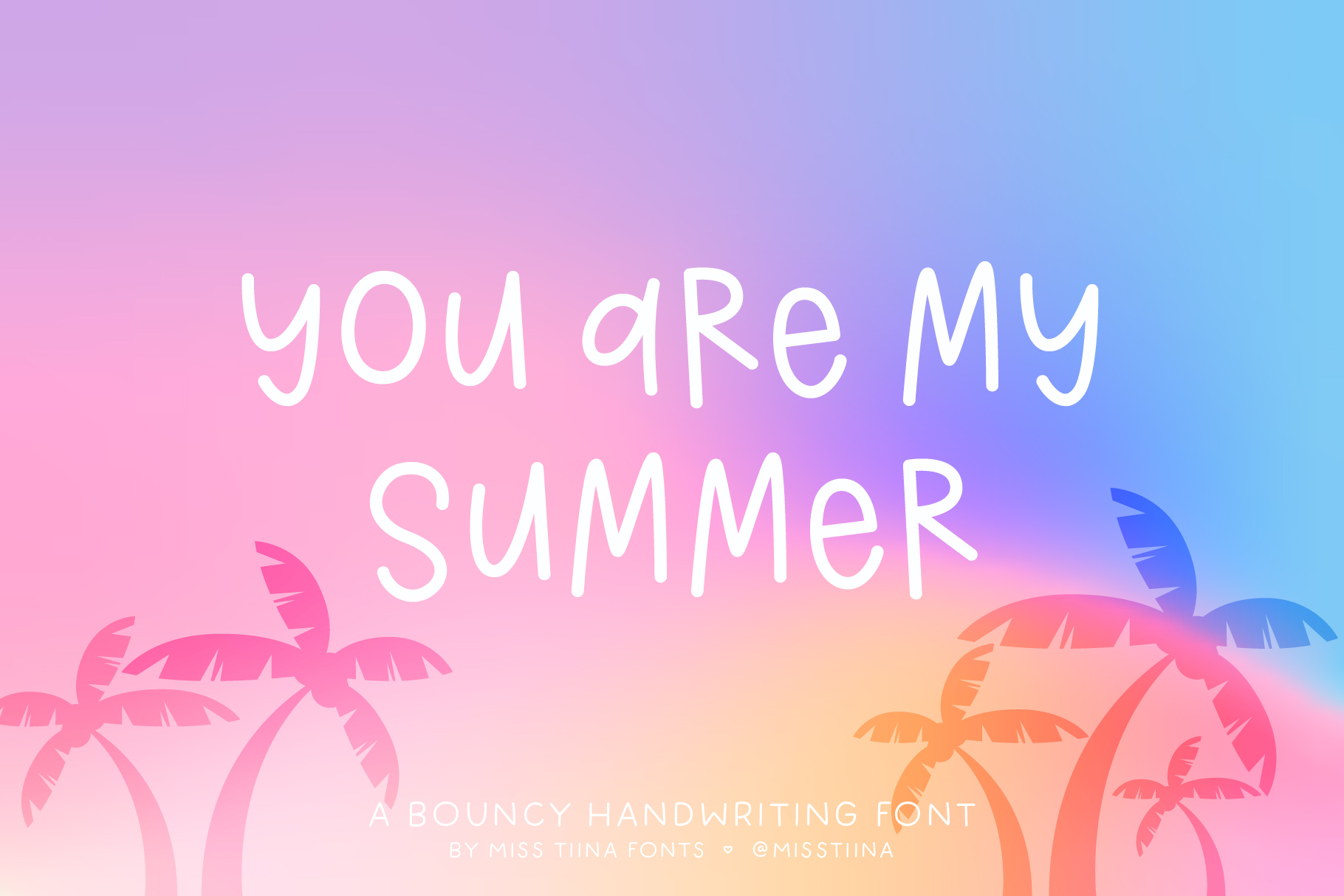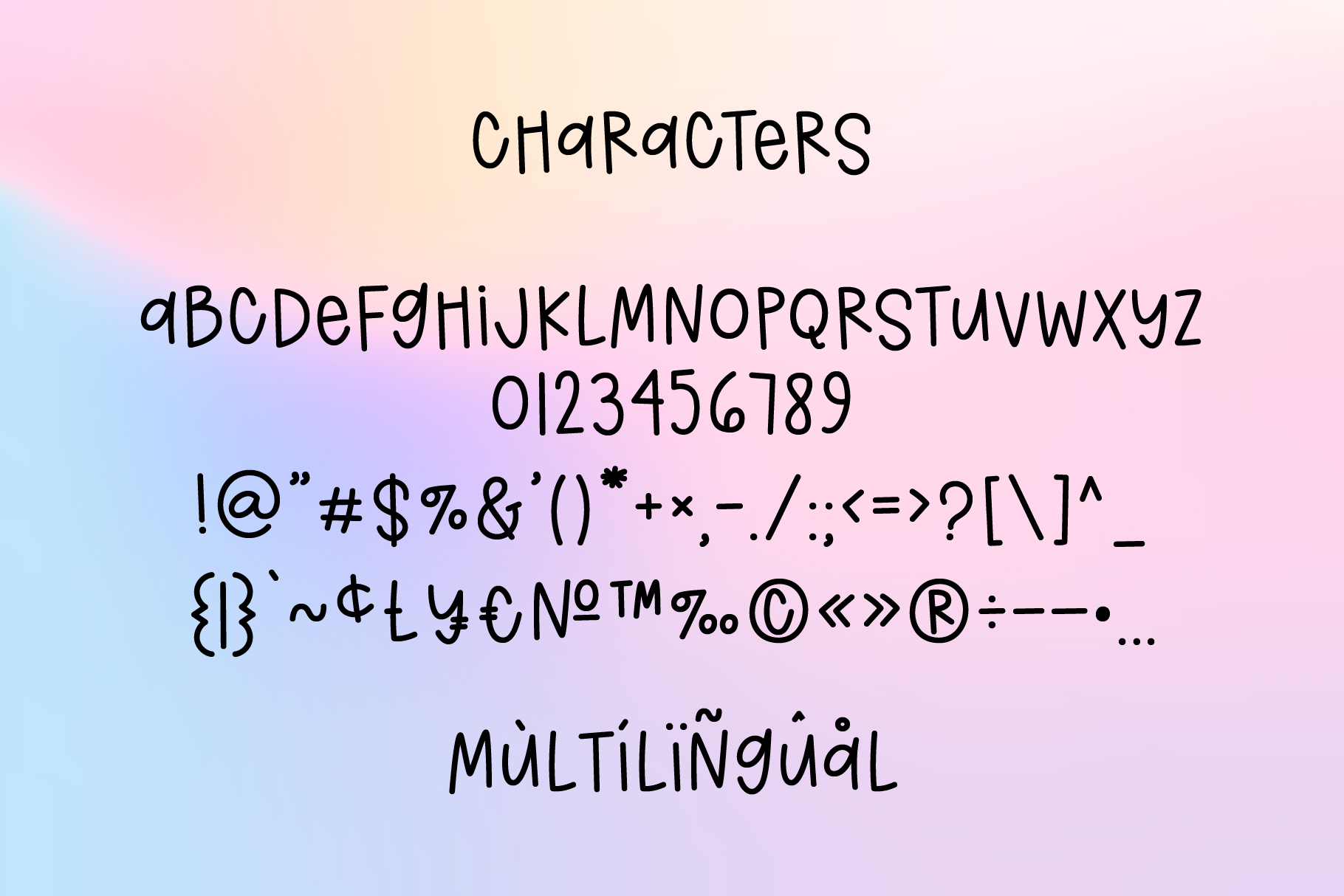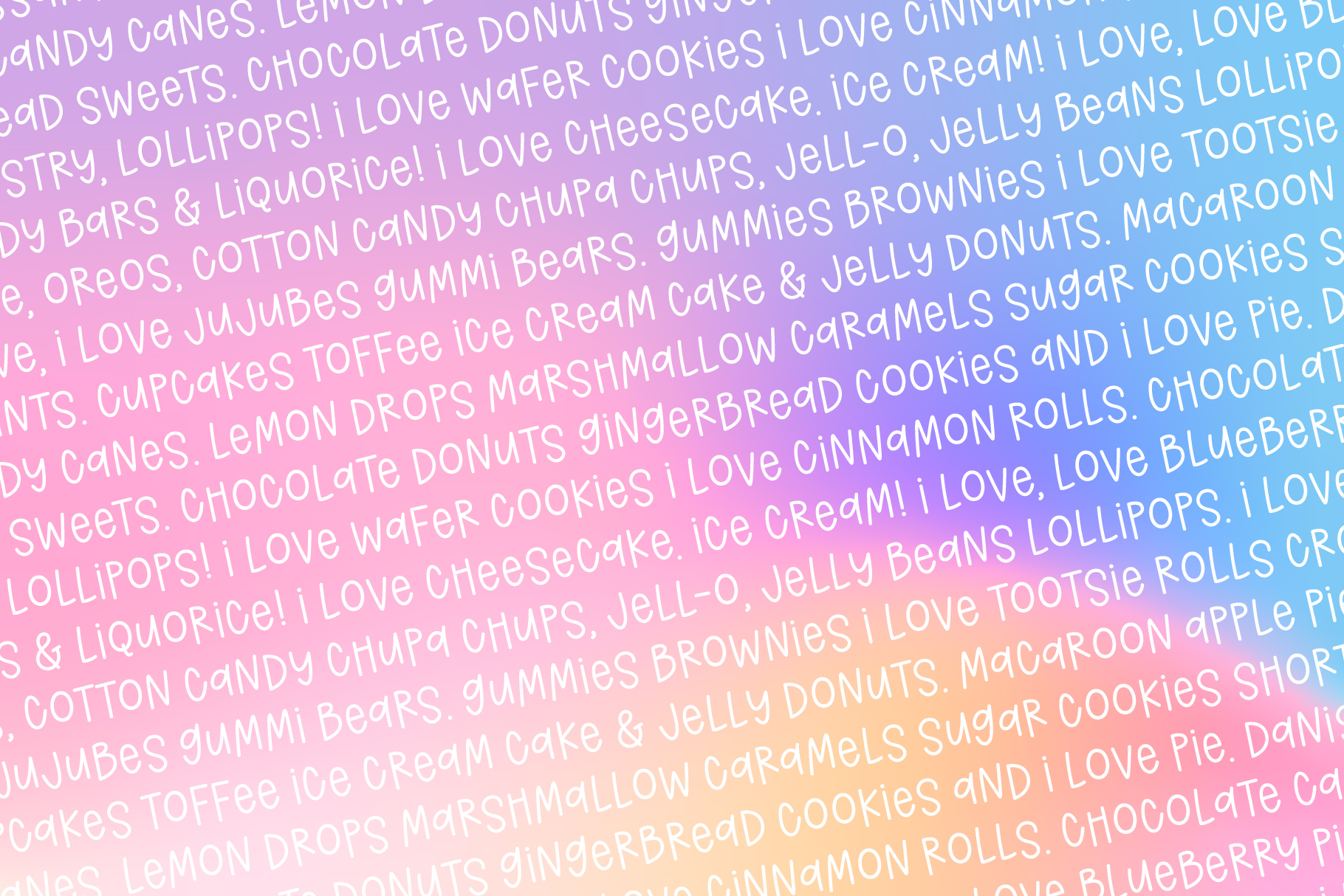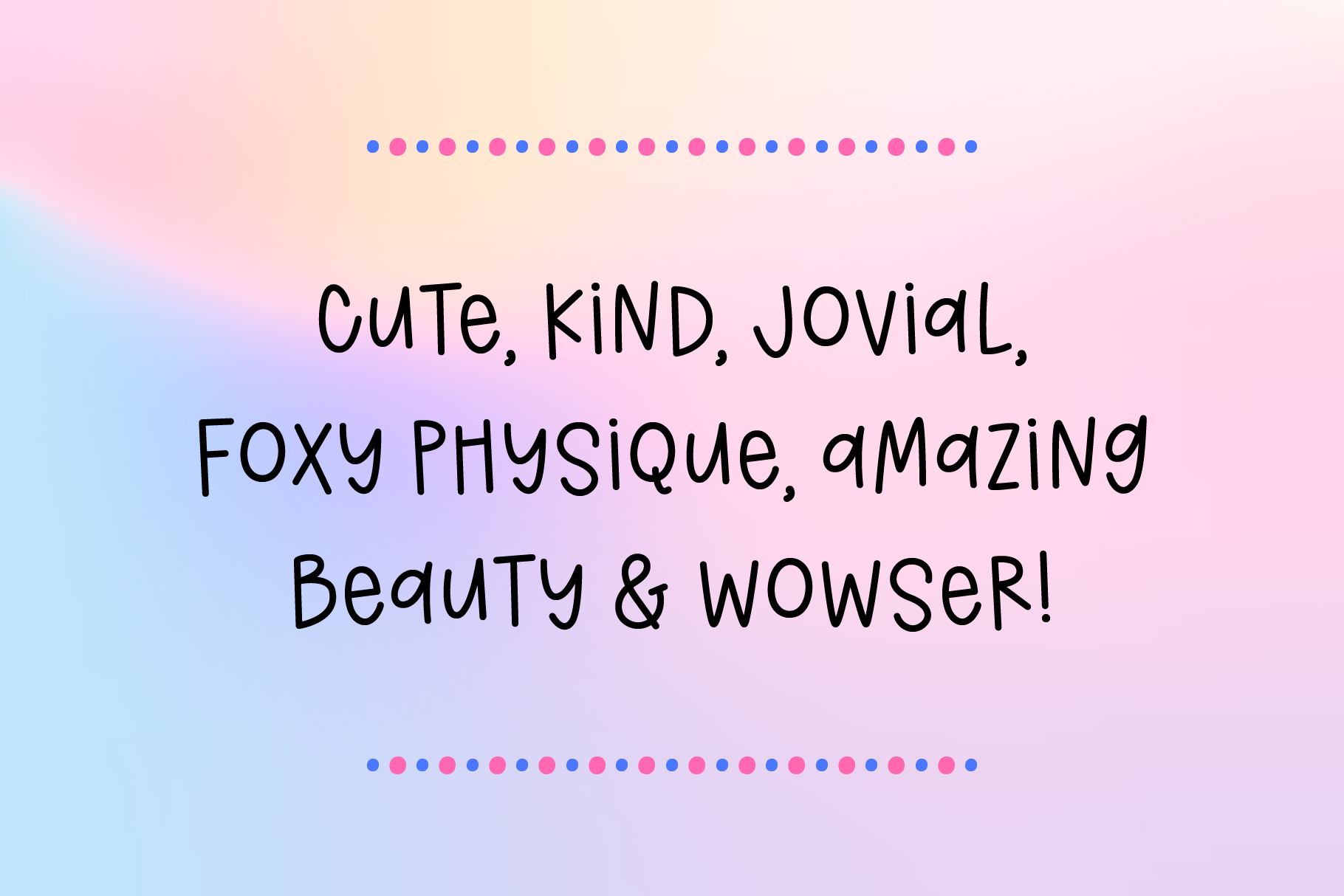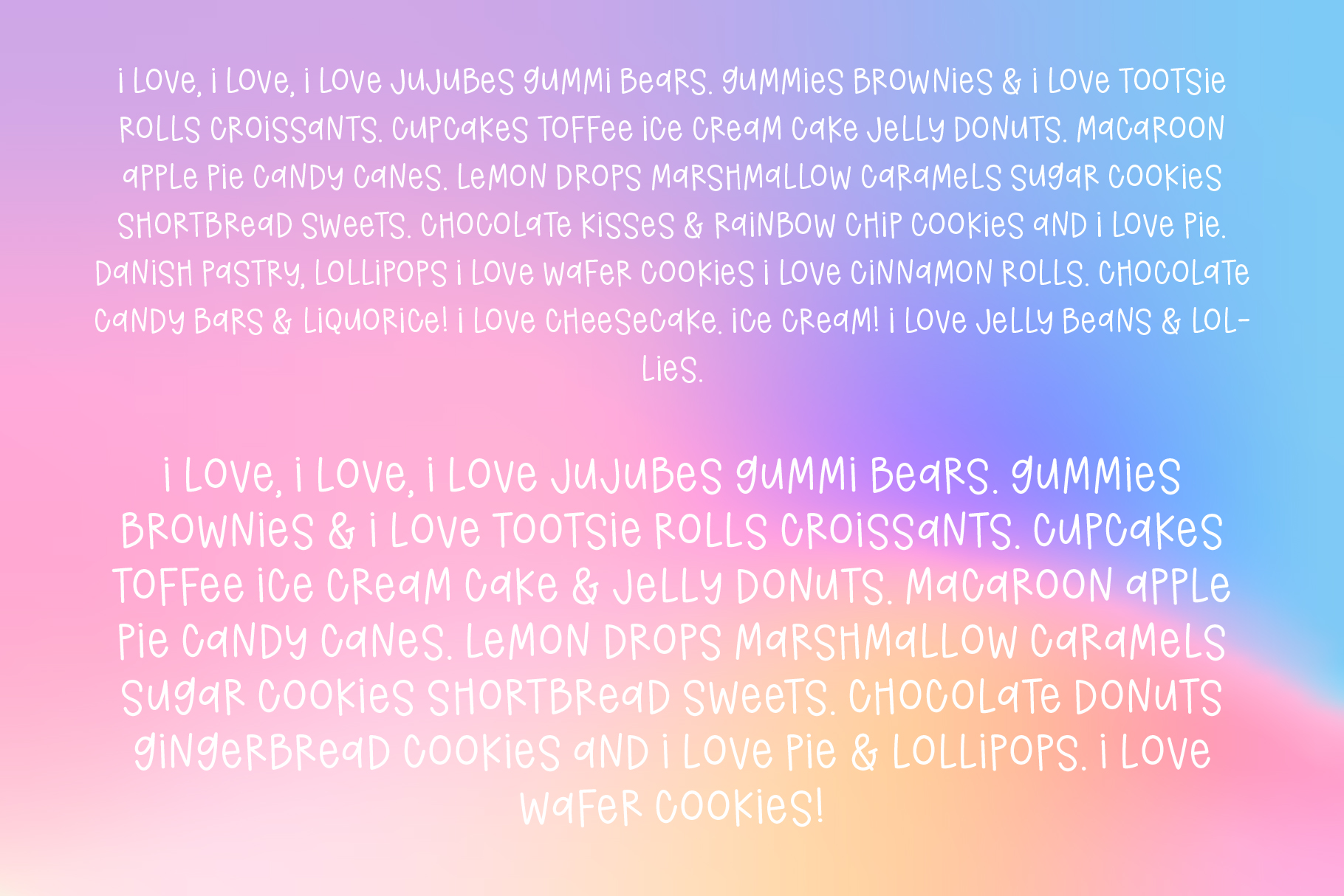
MTF You Are My Summer
You Are My Summer is a playful and sun-kissed handwritten font that captures the carefree spirit of warm days and sweet memories. With bouncy characters and a quirky vibe, it’s perfect for beach quotes, summer invitations, and everything that feels like sunshine.☀️